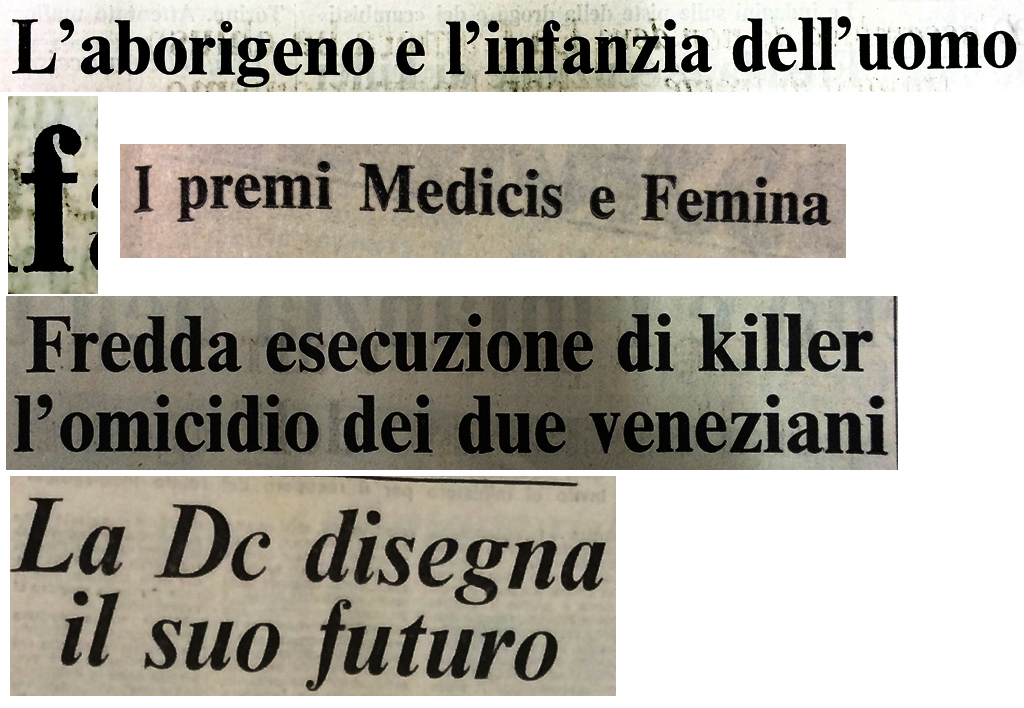
What is the Name of this font? (Italian newspaper)
Hi! I need to know the Name of this font..whathefont Said that is nimbus roman But the f is different. Is a font used in the headlines of an italian newspaper founded in 1887 But the photo is of a newspaper printed in 1981.
Nimbus Roman is the name of a version of Times New Roman produced by URW++ in 1982.
I don’t know what kind of technology would be employed to print an Italian newspaper in 1981, but the typeface in your sample looks like one of the many variants of Times with a modified |f| (presumably to avoid the need for kerning and/or ligatures).
Given the year, 1981, most newspapers had moved to photocomposition. While 1981 was late in the game for photocomp, earlier machines had little or no kerning capabilities, especially for the newspaper market. While it is not possible to identify which machine manufacturer this may have come from, the best bet is that it did come from a photocomp machine. If the newspaper was using an older system it might explain the redesigned /f  because later machines had at least some kerning capabilities.
Another thing that might be the reason for the redesigned /f  is that it was a "similar to" design whereby the manufacturer made small changes to some characters in order to avoid royalty payments to the rights holder of the design. It would have been marketed under another name. American manufacturers in particular were famous for using that strategy.
If you have to match the /f exactly (for internal use only), your best bet is to use a font of Times Bold (which I think it is), a font editor, and generate your own font by redesigning the /f. Be sure that your font license allows such alterations though.